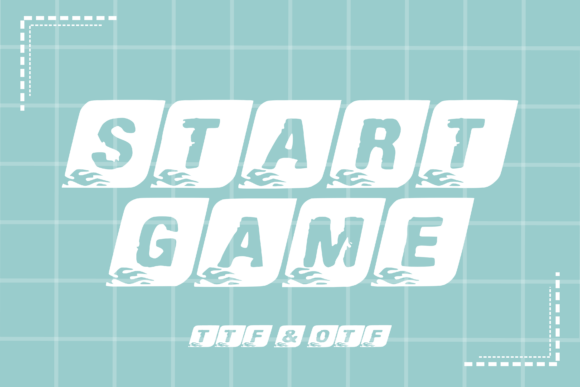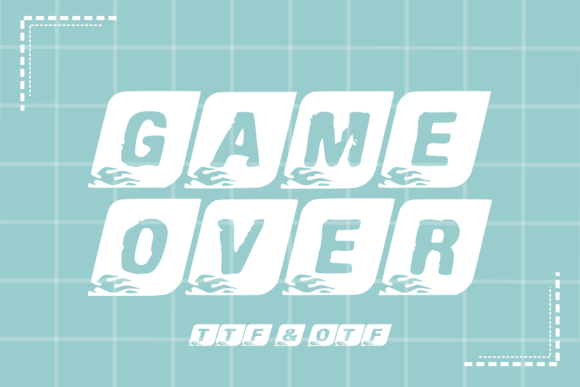
Introduction to Racing Speed Font Font
Fonts play a crucial role in design, and the Racing Speed Font font is a typeface that brings both character and versatility to any project. Whether you’re working on a branding project, a website, or a print design, the Racing Speed Font font offers a unique style that can elevate your work.
Racing Speed is a bold and energetic display font designed for motion and adrenaline-fueled designs.
Each letter has a dynamic italicized slant with speed lines, making it perfect for sports, racing events, automotive branding, and action-packed designs If you want to add a sense of motion and excitement, Racing Speed is the perfect choice.
Key Features of Racing Speed Font Font
Why Choose Racing Speed Font Font?
The Racing Speed Font font is more than just a typeface – it’s a design tool that helps you communicate your message with style and clarity. Its unique character set and versatile design make it suitable for a wide range of applications, from elegant invitations to bold headlines.
With its carefully crafted letterforms and balanced proportions, the Racing Speed Font font ensures readability and visual appeal across all mediums.
What makes Racing Speed Font font special?
The Racing Speed Font font stands out with its unique design, exceptional readability, and versatility across various design applications.